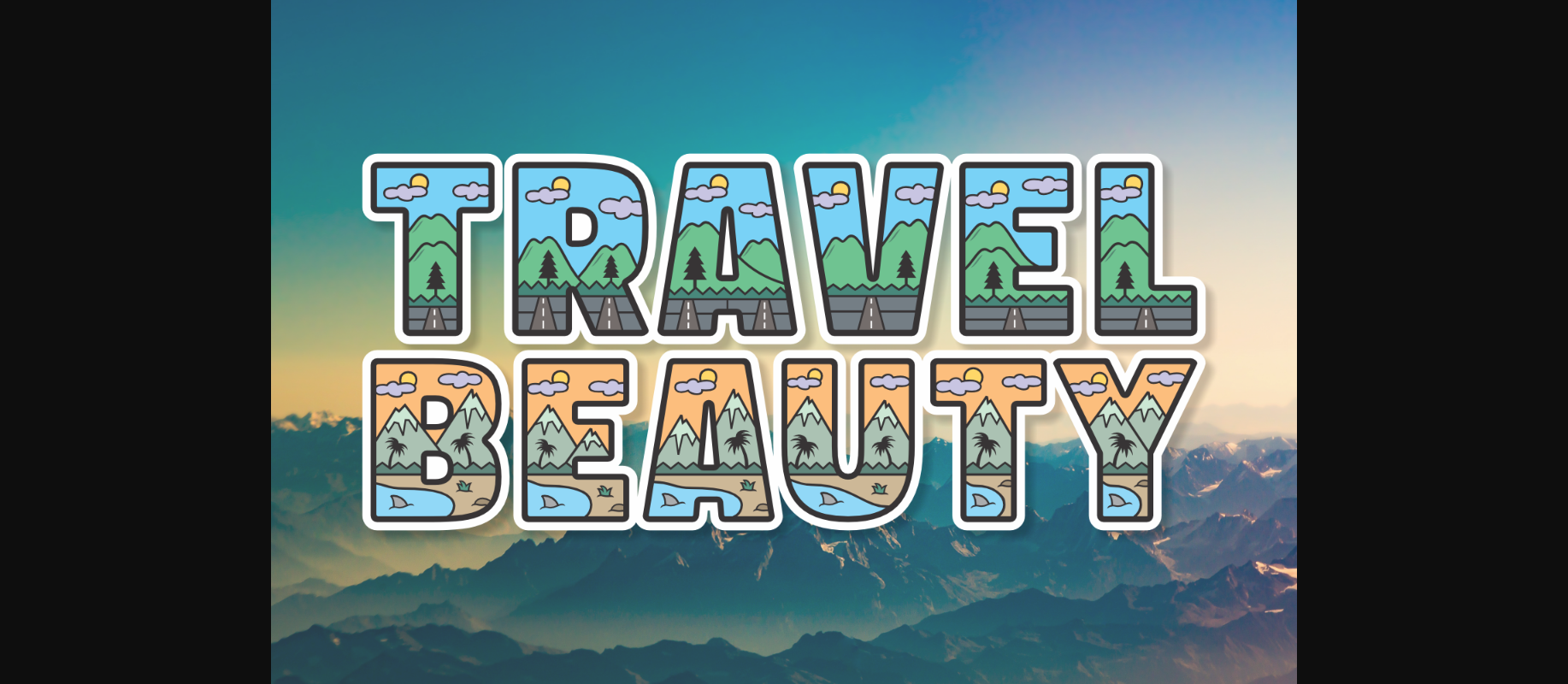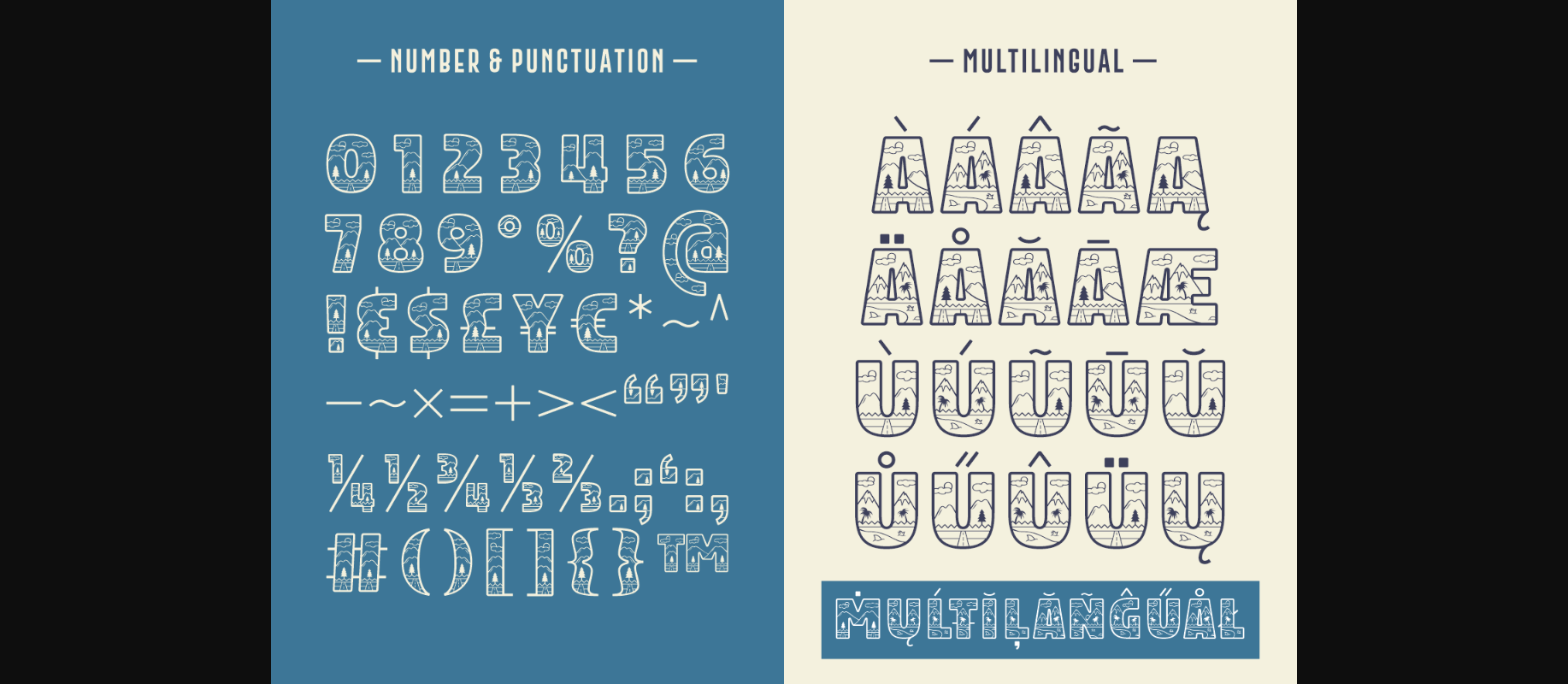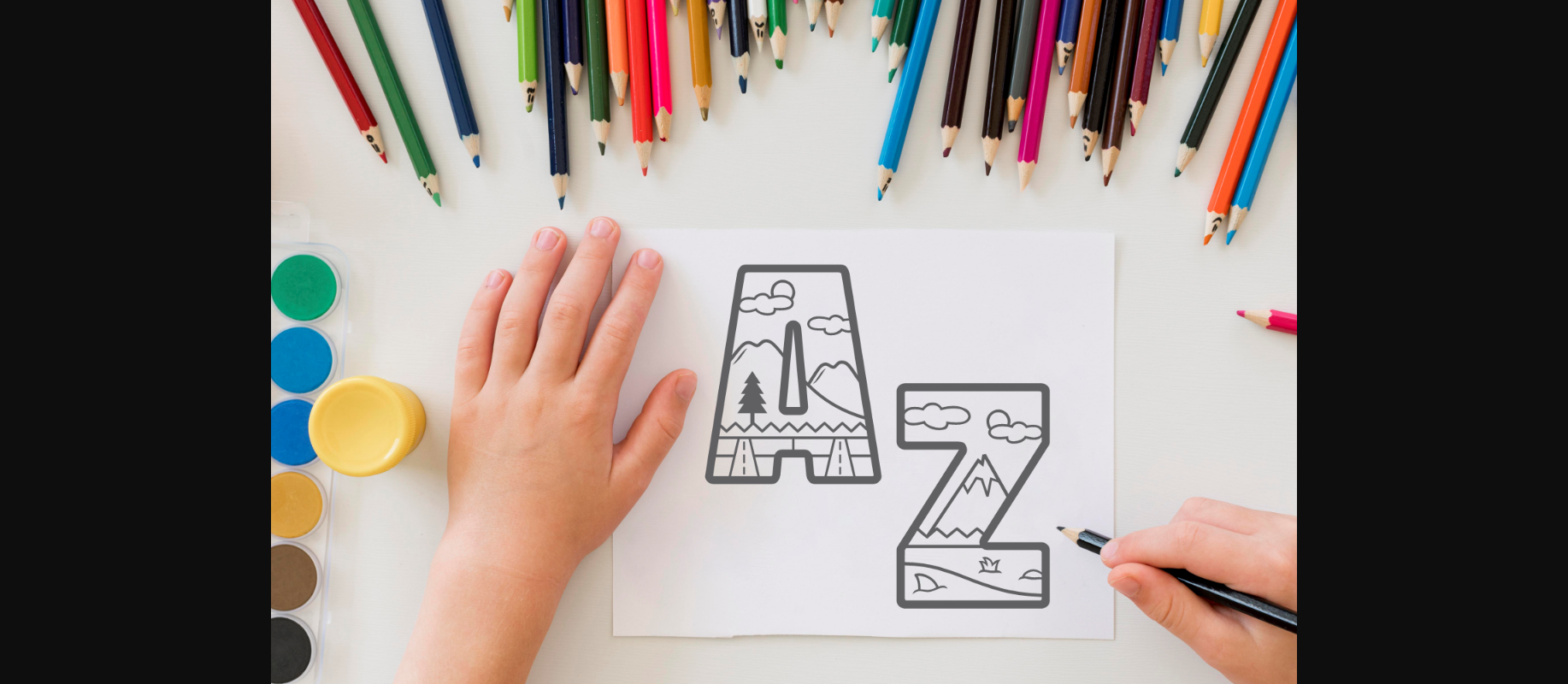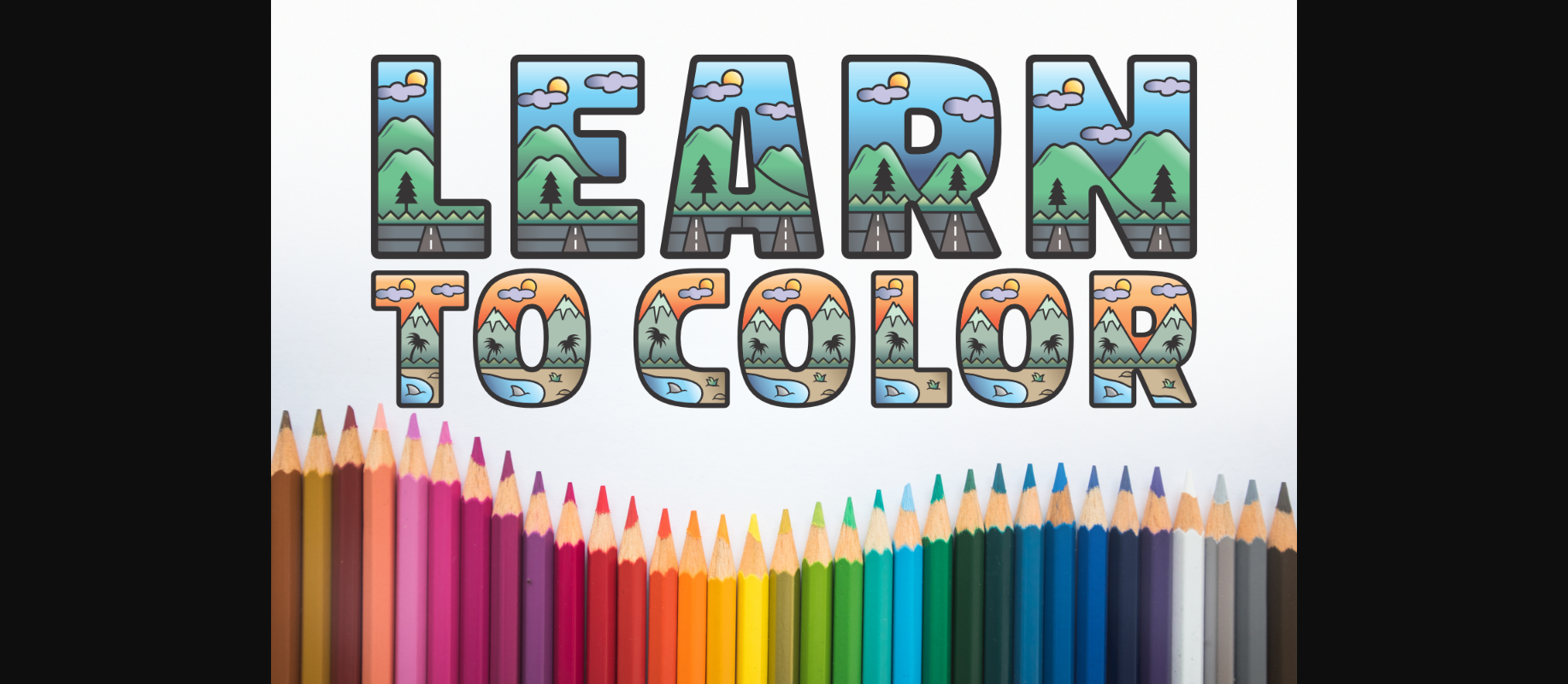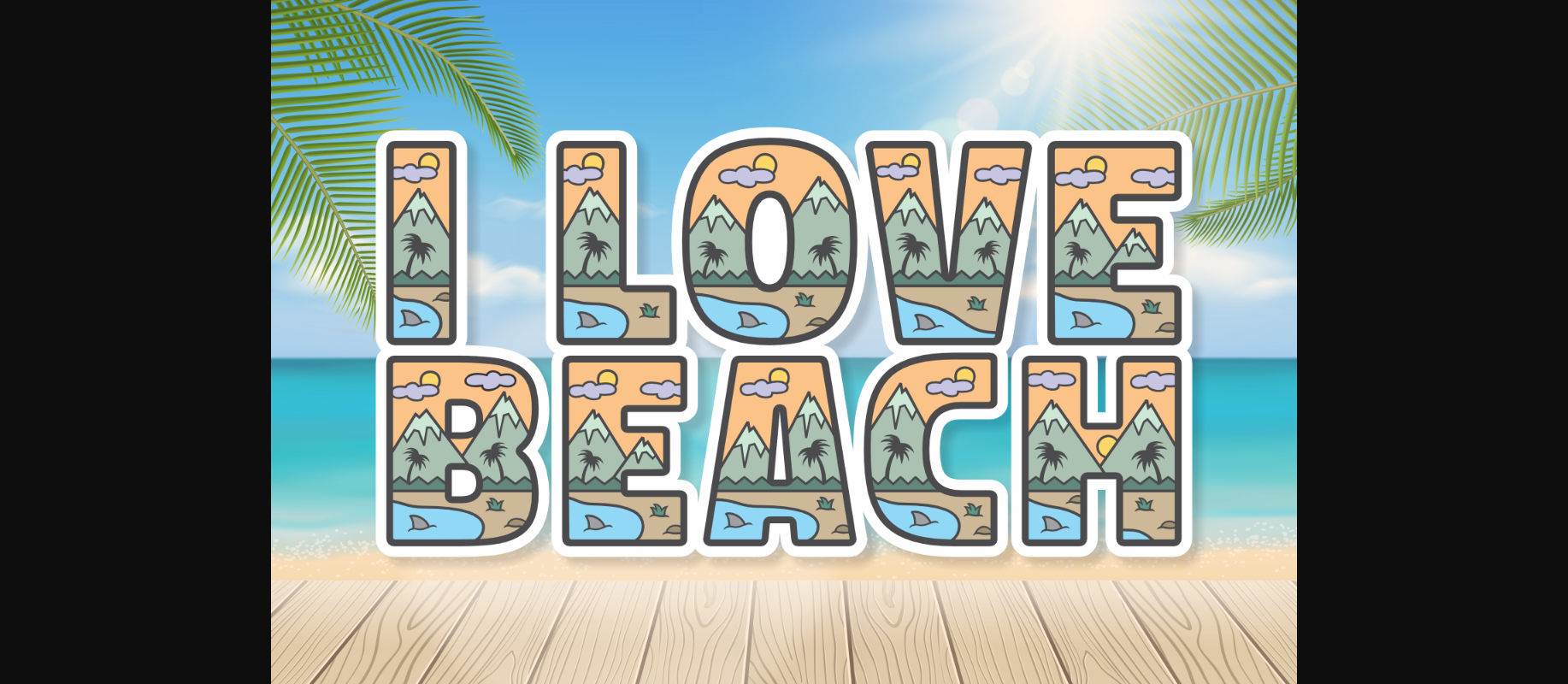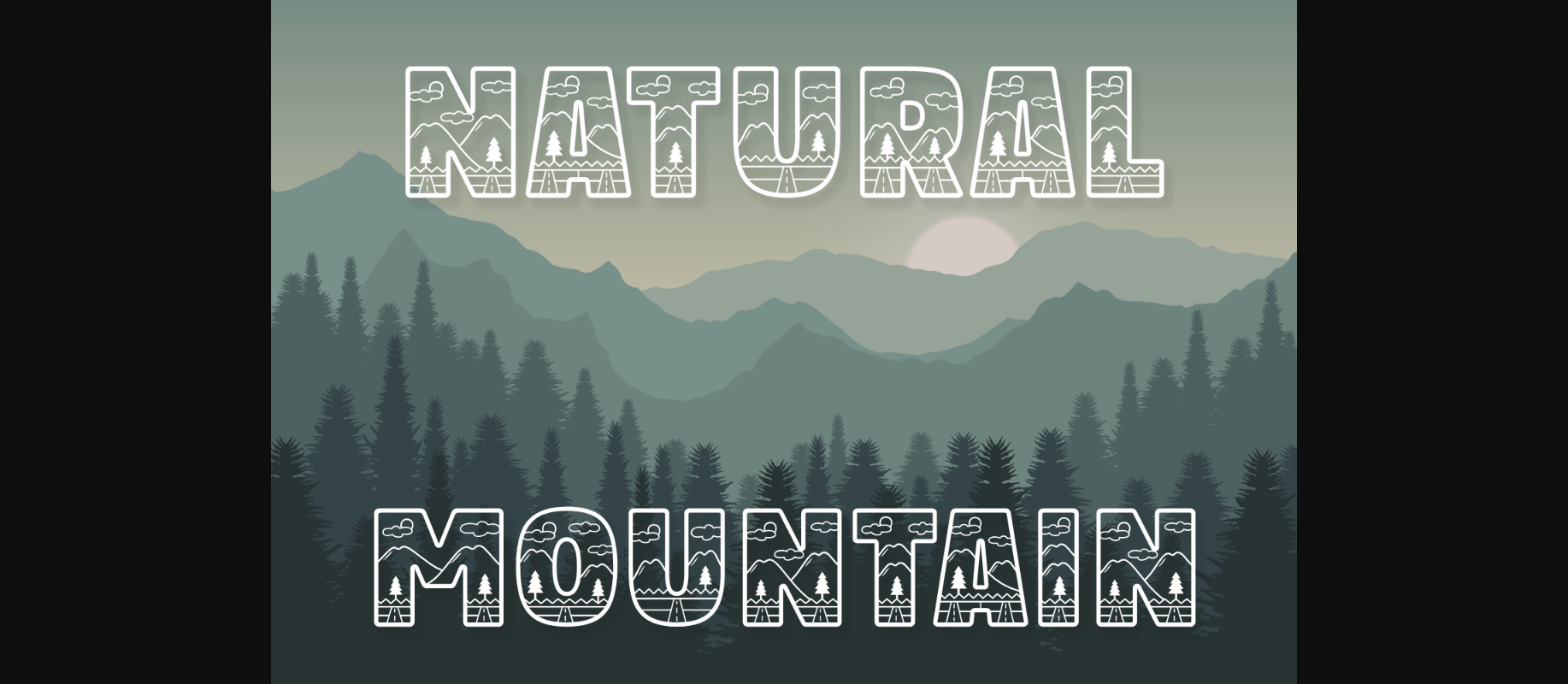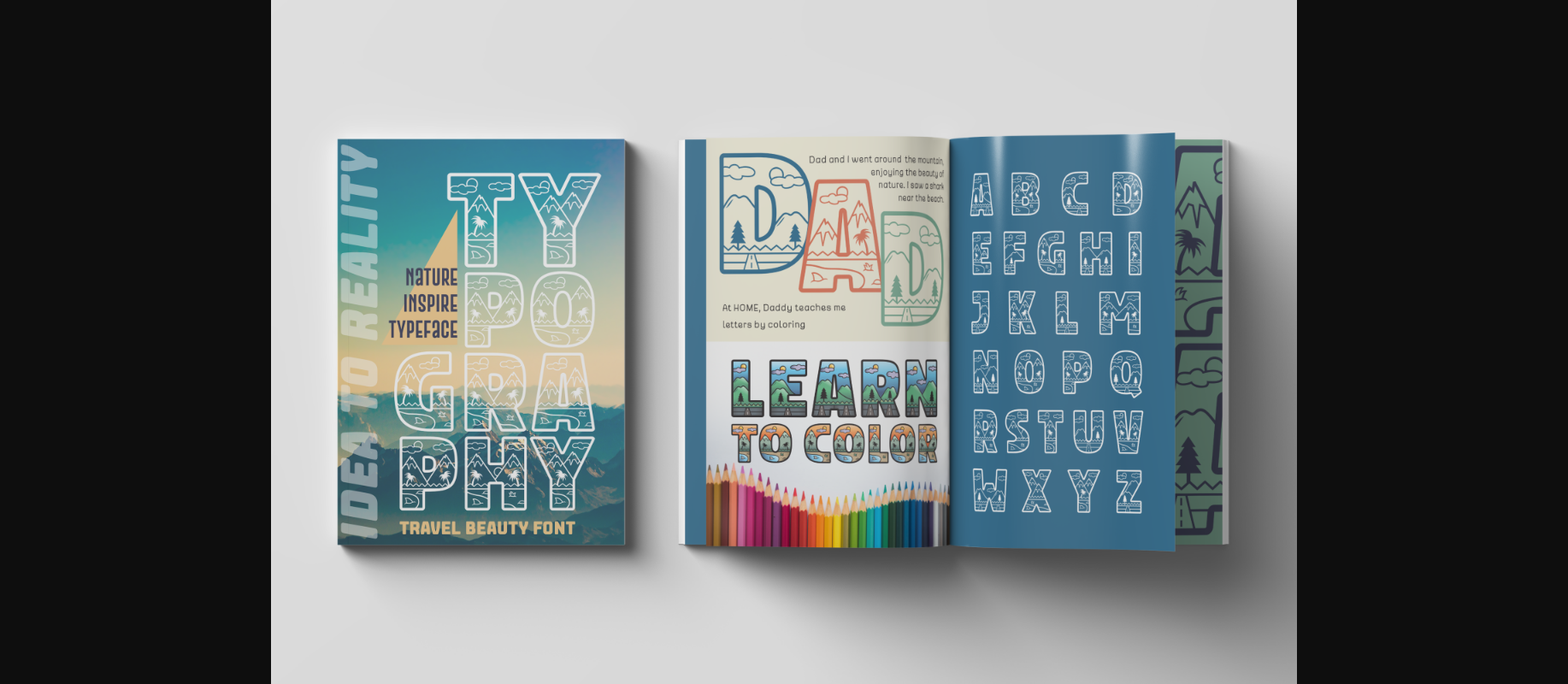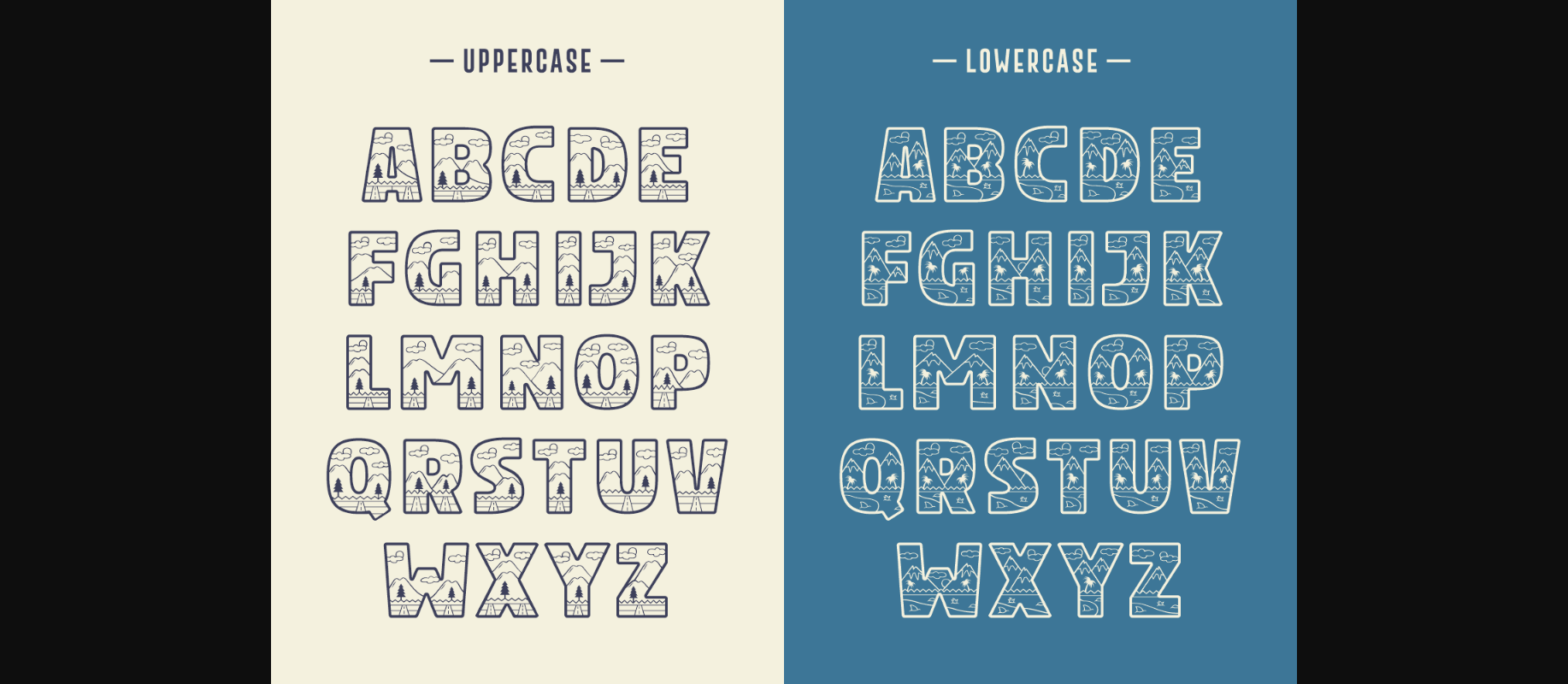
Travel Beauty Font
Travel Beauty is an incredibly cool and unique decorative font. This modern and bold vibe can easily apply to your favorite travel-related designs.